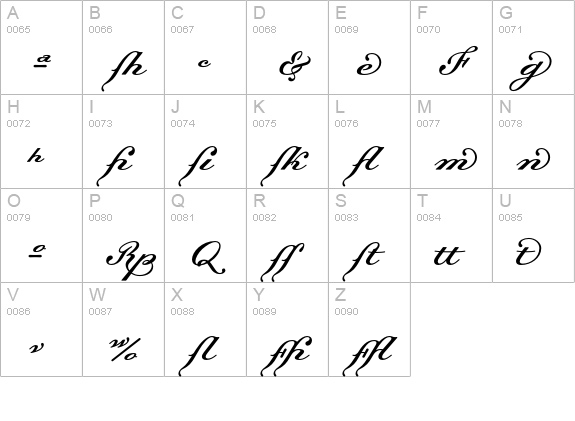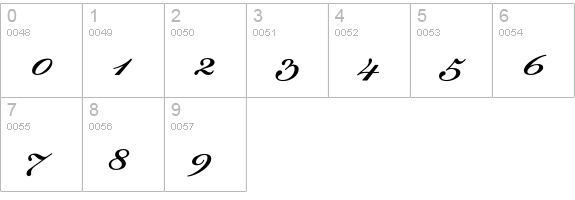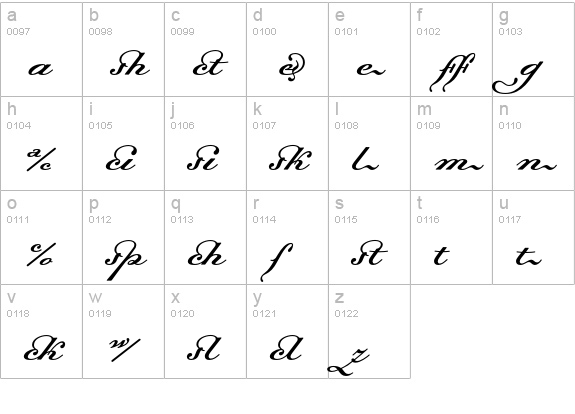
DallianceScriptLigatures font is a perfect blend of elegance and creativity, designed to add a touch of sophistication to any project. With its beautifully flowing script style and intricate ligatures, this font captures attention and creates a unique visual experience. Every letter of DallianceScriptLigatures is meticulously crafted to ensure smooth, seamless connections between characters. The ligatures effortlessly blend together, creating a seamless flow that mimics the natural movement of handwriting. This attention to detail results in a font that exudes grace and charm. The versatility of DallianceScriptLigatures is unmatched, making it suitable for a wide range of projects. Whether you're designing wedding invitations, branding materials, or simply adding a touch of elegance to your personal projects, this font will elevate your work to new heights. To make it even more appealing, DallianceScriptLigatures is available as a free download at FontsMarket.com. This means that you can access this stunning font without spending a penny, allowing you to unleash your creativity without any limitations. So why wait? Enhance your designs with the captivating beauty of DallianceScriptLigatures font today. Download it for free at FontsMarket.com and let your imagination soar.